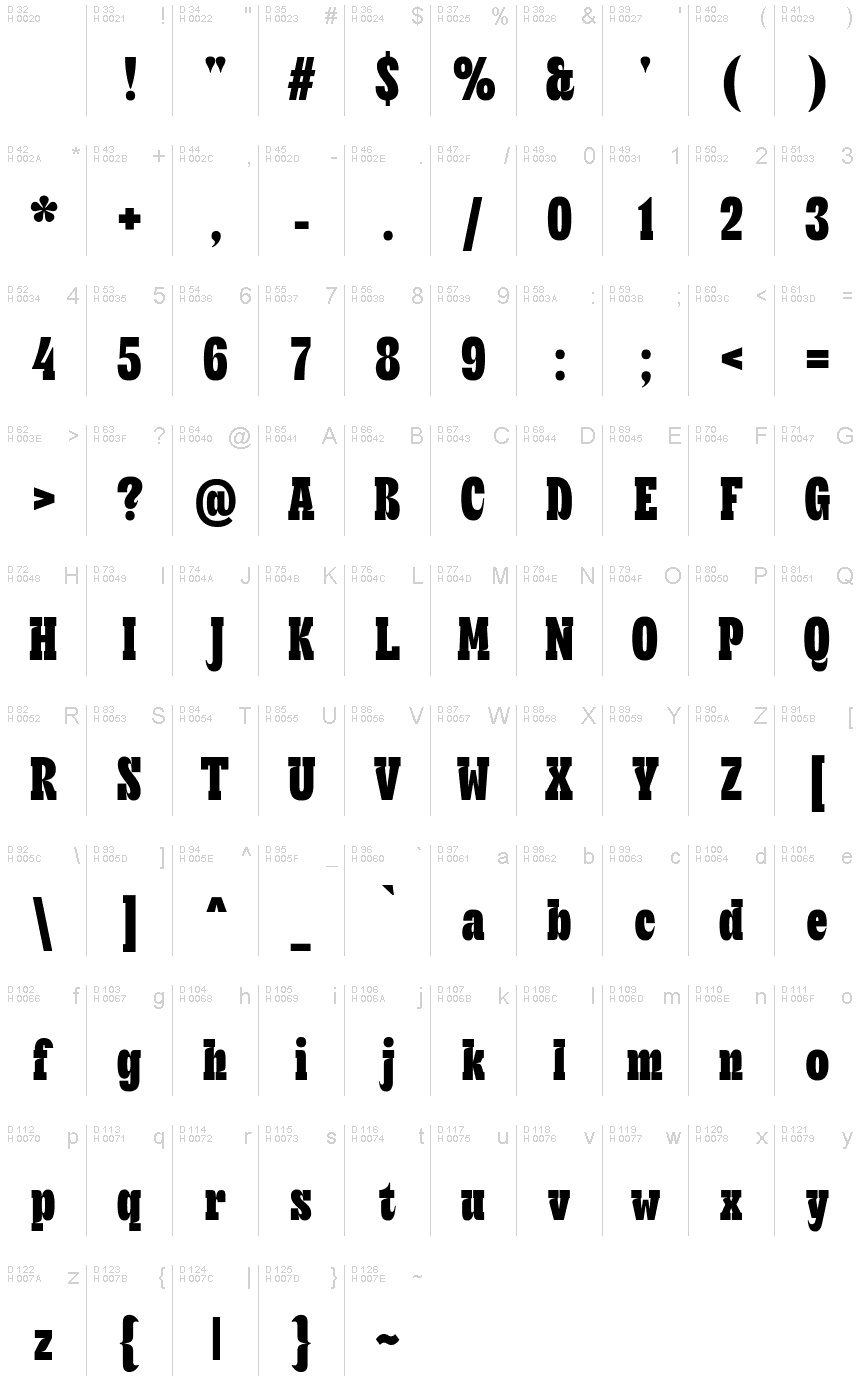
TT Cometus Trial Variable
TT Cometus Variable is a distinctive offering from the TypeType Foundry that merges the timeless elegance of serif fonts with the modern efficiency of condensed typefaces. Crafted with precision, its bold weight exudes confidence and strength, making it an excellent choice for headlines that demand attention. The font’s unique serifs add a touch of sophistication, while its condensed width allows for impactful messaging in space-conscious designs.
The aesthetic appeal of TT Cometus Variable lies in its balance between classic style and contemporary flair. This versatility ensures that it can adapt to a wide range of creative projects, from branding and advertising to editorial design. Whether you're looking to convey tradition or innovation, this font stands ready to complement your vision with its characteristic charm and readability.
With TT Cometus Variable, designers gain access to a typeface that is not only visually striking but also incredibly flexible due to its variable nature—allowing fine-tuning for various contexts without losing coherence or appeal. Embrace the potential of TT Cometus Variable in your next project and let its unique characteristics elevate your design narrative.